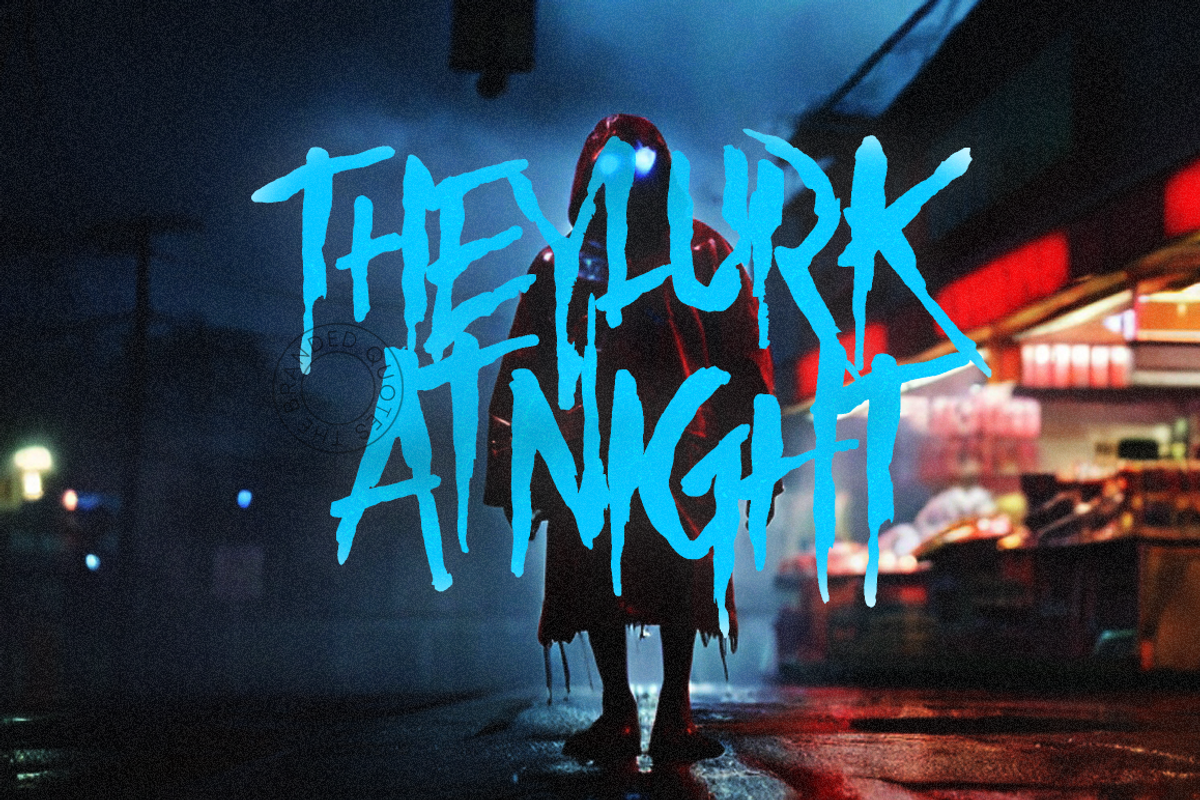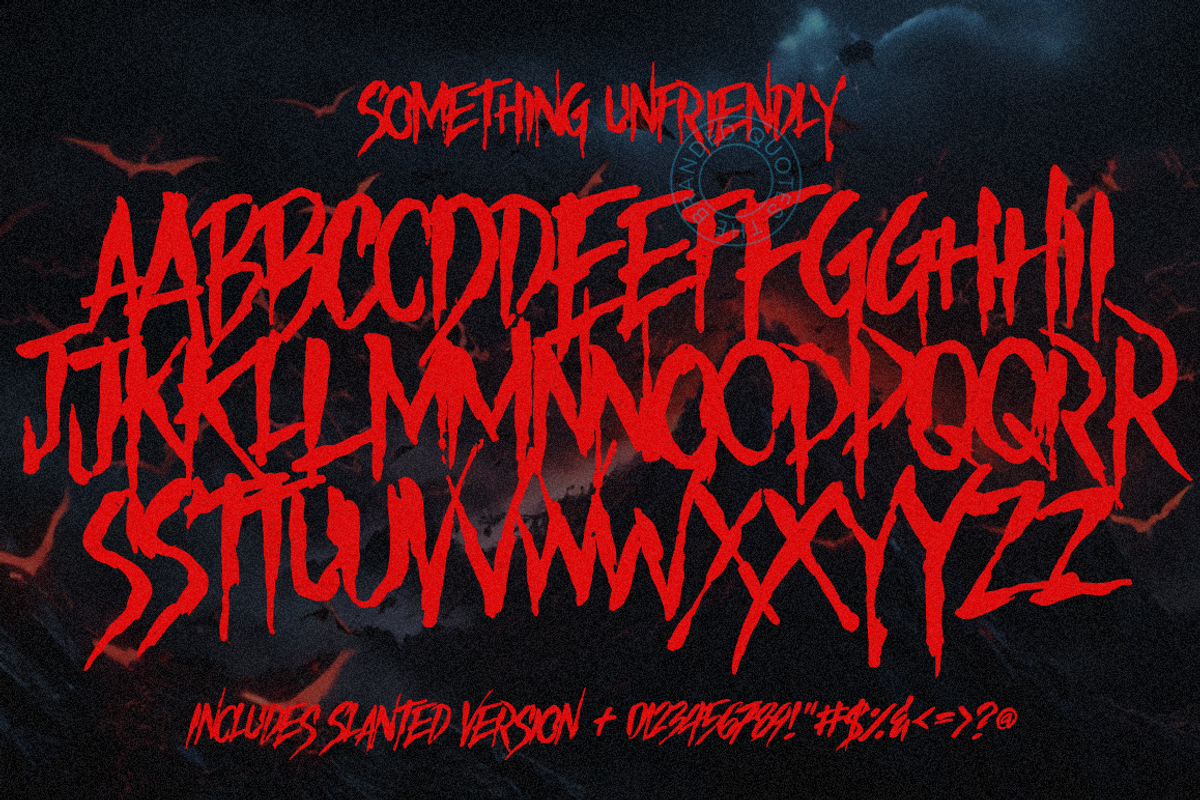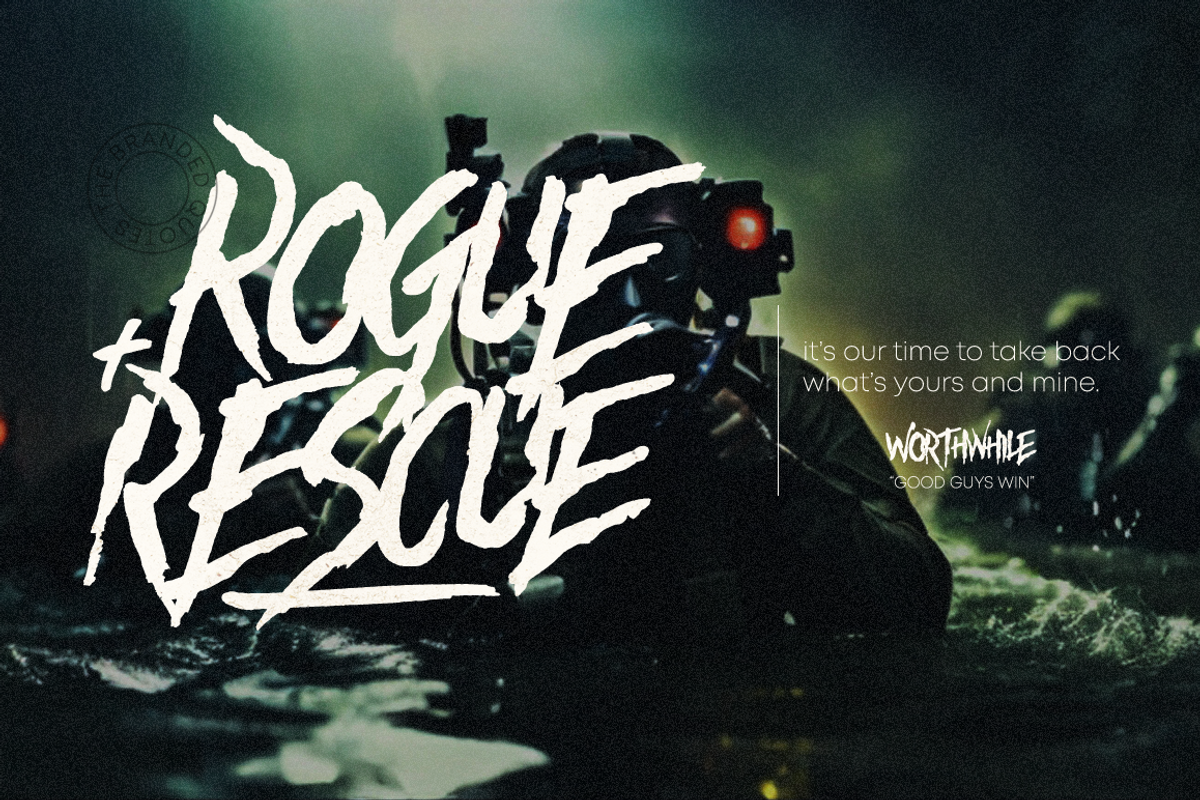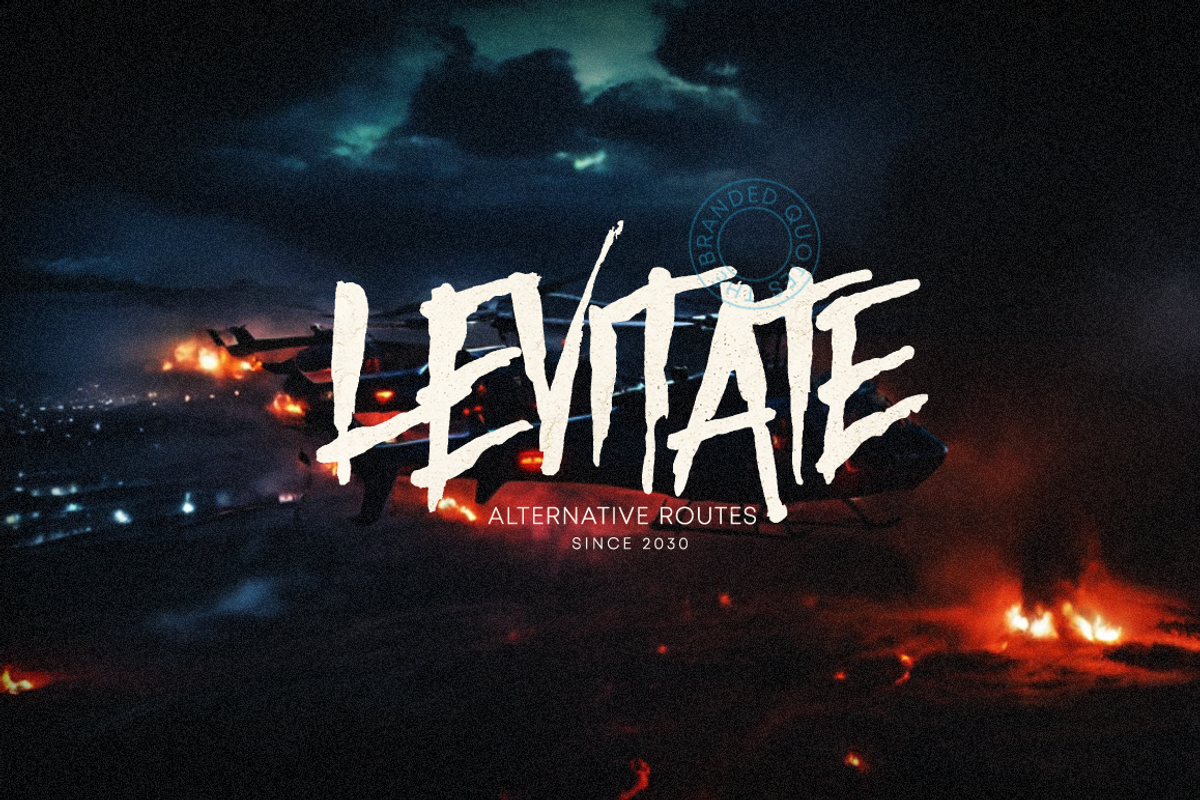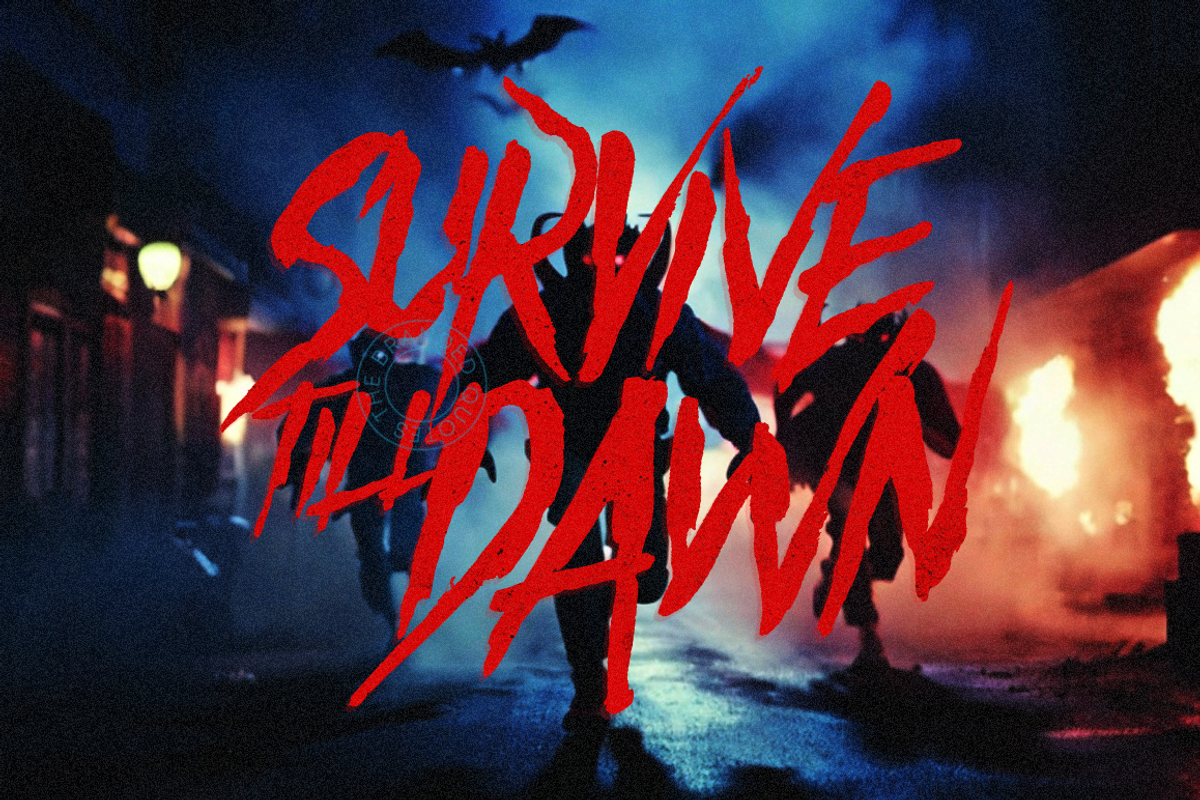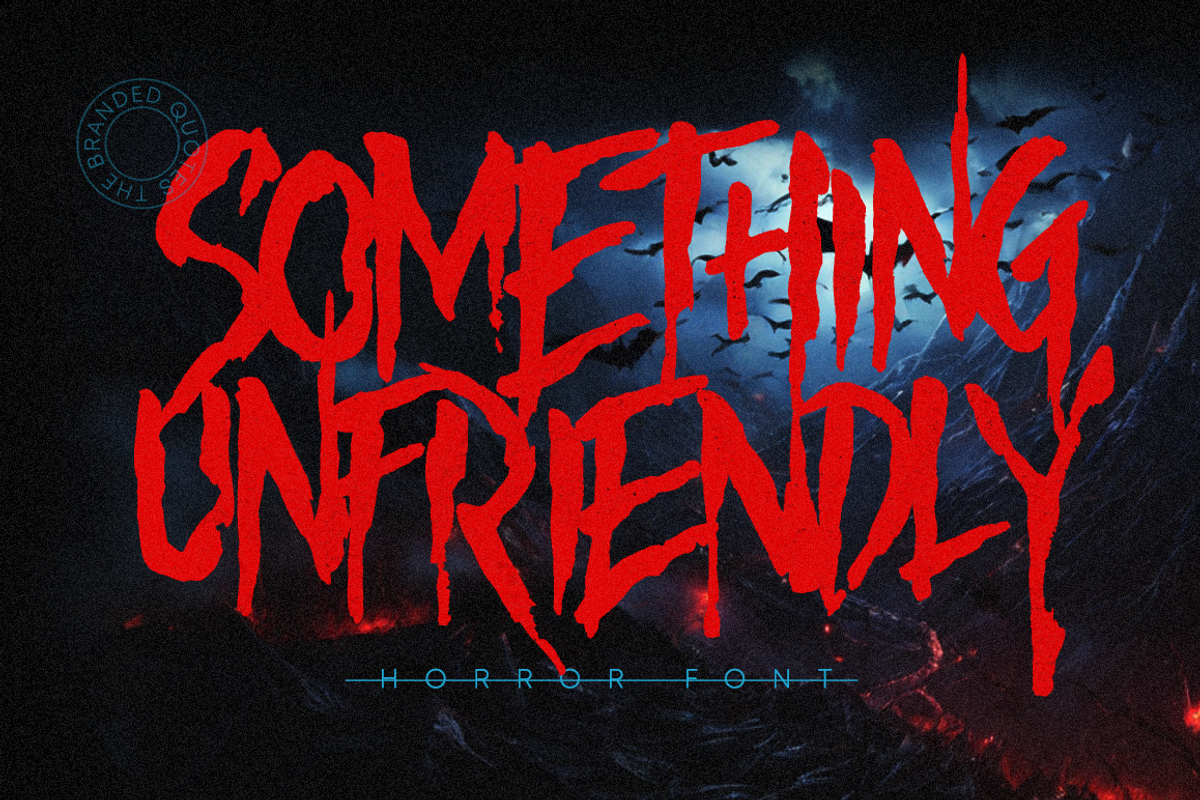
Something Unfriendly - Horror Font
Something Unfriendly is a horror font produced using a dark water-based poster ink and a round brush. Applied on a rough paper to achieve the jagged and slow-dripping look on each glyph. The results are some ominous undertones ready to be used for your horror-themed projects. Try to combine the uppercase and lowercase letters to get a unique presentation.